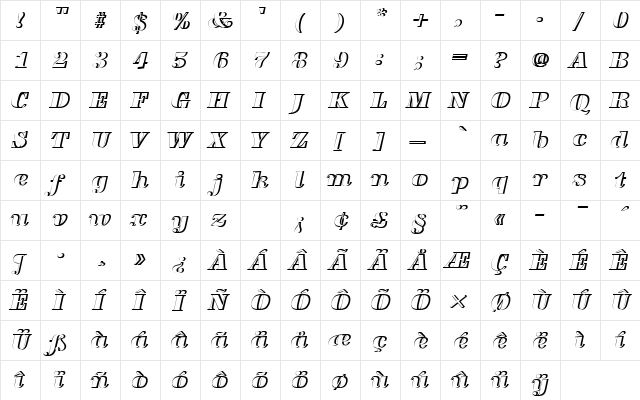
URWAntiquaTUltBolItaRe1 Regular Font Preview
URWAntiquaTUltBolItaRe1 Regular
Design Context for URWAntiquaTUltBolItaRe1 Typeface
URWAntiquaTUltBolItaRe1 takes a measured approach to typography — its balanced proportions and neutral character make it a reliable workhorse for both digital and print work.